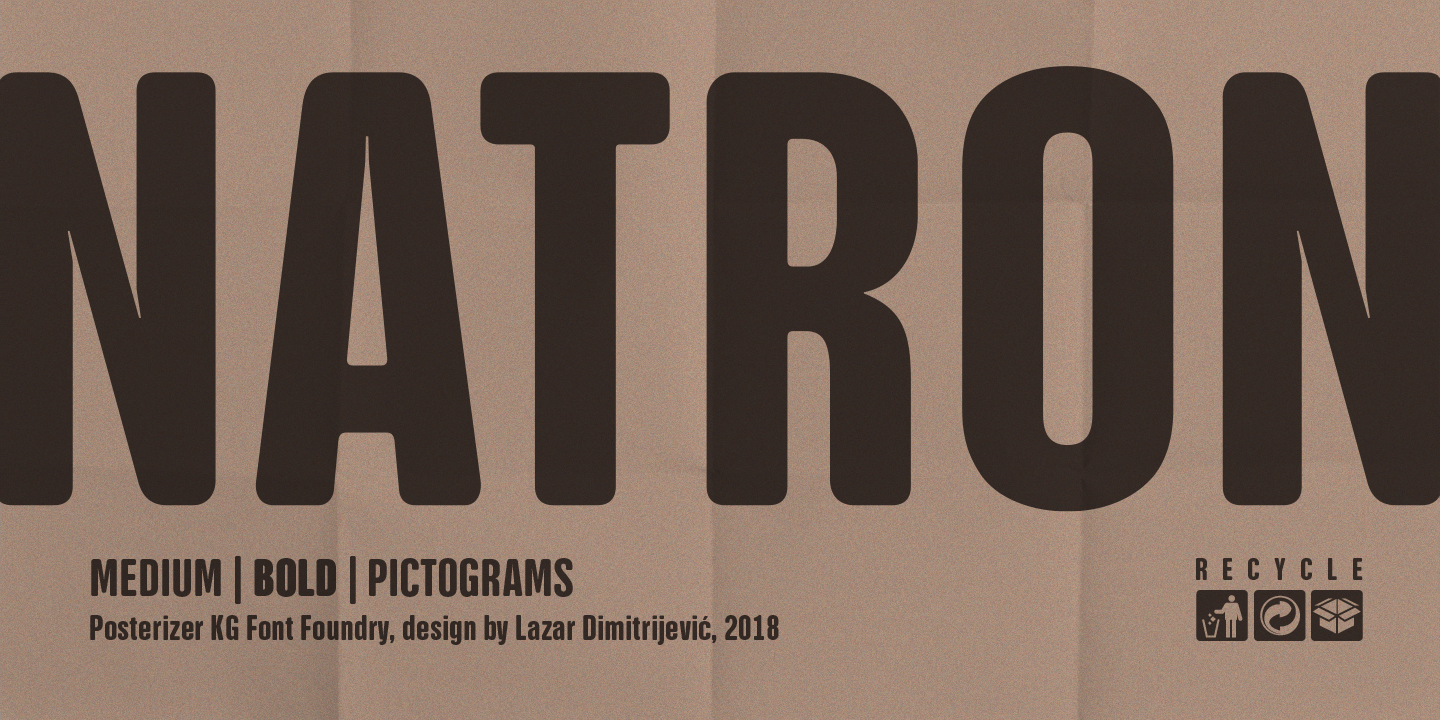
Perfect for chemical industry branding, scientific laboratory materials, industrial process documentation, pharmaceutical packaging, environmental research publications, mining company communications, technical safety manuals, and specialized manufacturing materials.
This font is exciting because it embodies the precision and reliability of chemical science with crystalline letterforms that reflect the molecular structure and industrial strength found in advanced chemical processes and materials research.
Discover the power of scientific precision with NATRON Font Free Download, a commanding typeface that embodies the crystalline structure and industrial strength of advanced chemical science. This exceptional font brings the reliability and precision of laboratory research to contemporary design projects, making it indispensable for organizations operating in chemical industries where technical accuracy, safety standards, and scientific credibility are fundamental to operational success and public trust.
NATRON Font features precisely engineered letterforms with crystalline characteristics and industrial proportions that immediately communicate scientific rigor and chemical expertise. The carefully structured characters combine molecular aesthetics with optimal readability, creating immediate associations with laboratory precision, industrial processes, and the exacting standards that define professional chemical research and manufacturing operations worldwide.
The font's remarkable precision makes it ideal for chemical companies, research institutions, and industrial organizations where conveying technical expertise and safety reliability is crucial for regulatory compliance and customer confidence. Whether you're designing documentation for pharmaceutical manufacturing facilities that must meet strict regulatory standards, creating safety materials for chemical processing plants, or developing brand identities for environmental testing laboratories, NATRON Font delivers the authoritative scientific aesthetic that builds trust with technical audiences and regulatory authorities.
Chemical industry professionals and scientific organizations worldwide rely on the NATRON Font Free Download for projects requiring technical credibility and industrial authority. The font works exceptionally well for specialty chemical manufacturers showcasing advanced formulations, environmental consulting firms publishing research findings, petrochemical companies communicating safety protocols, and any organization seeking to establish leadership in chemical science through carefully designed professional communications.
The comprehensive NATRON Font family includes multiple weights and variations that work seamlessly together, enabling technical communicators to create sophisticated information hierarchies for complex chemical documentation. Each variation maintains the signature crystalline character while providing complete flexibility for diverse industrial applications, from detailed material safety data sheets to bold chemical industry advertising campaigns that capture attention in specialized markets.
This typeface excels in both highly regulated documentation environments where clarity is essential for safety compliance and marketing materials where establishing technical credibility is crucial for business development. The font's scientific precision ensures optimal performance across all platforms, from laboratory computer systems to printed documentation that must function reliably in demanding industrial environments.
NATRON Font's industrial aesthetic enhances the perceived value of technical content while improving comprehension through superior design principles and scientific typography standards. The font's crystalline character helps establish immediate credibility with technical audiences while maintaining the modern appeal necessary for engaging younger scientists entering chemical industries.
The font represents more than typography—it's a symbol of scientific excellence and industrial reliability that connects chemical communications with the highest standards of research integrity and manufacturing quality.